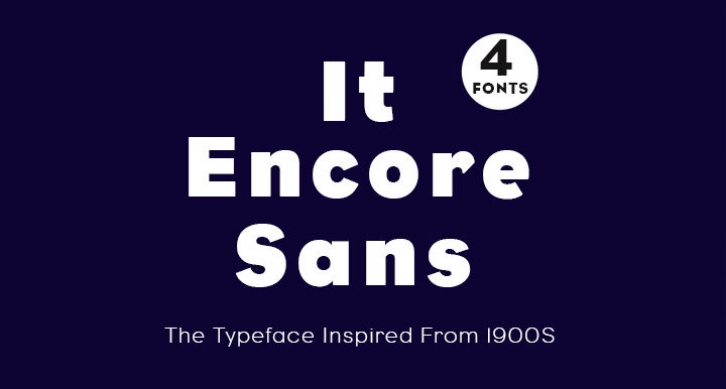
IT Encore Sans is a sans serif family, The Typeface Inspired From 1900S, inspired by ancient drawings. IT Encore Sans comes in 4 styles and includes more than 250 glyphs with European language support…